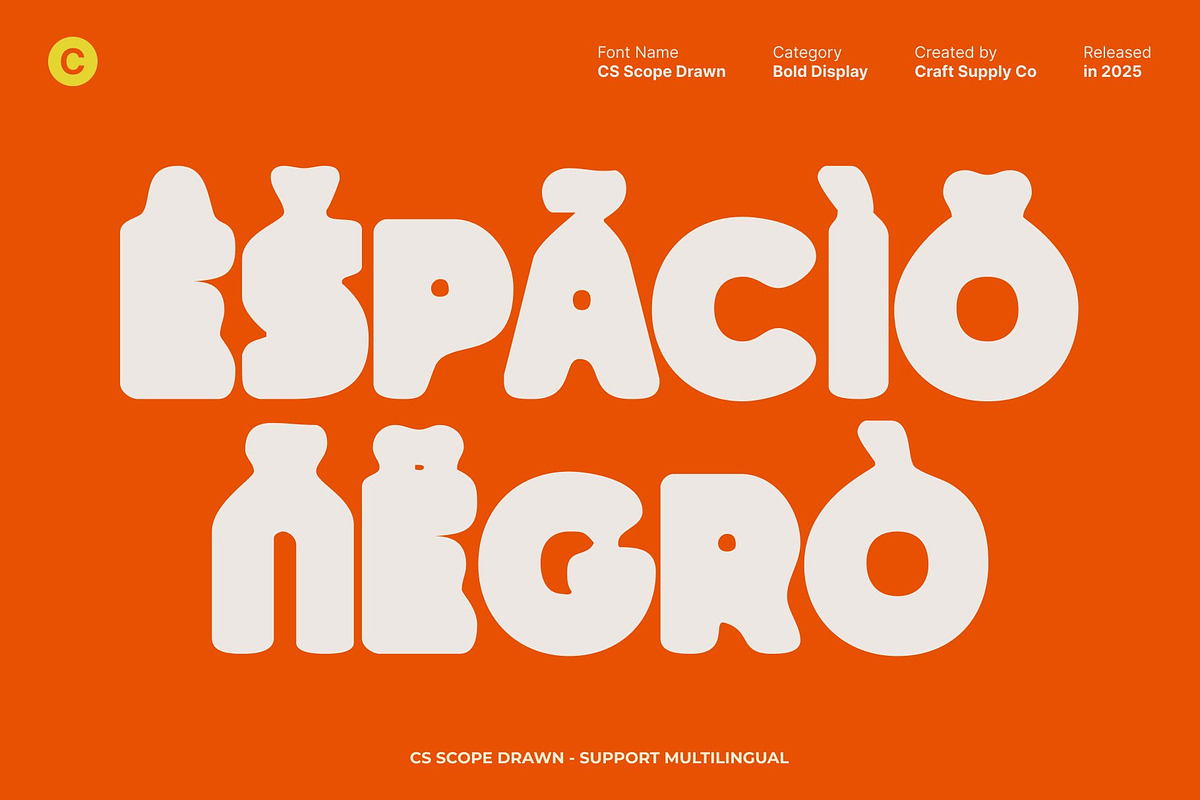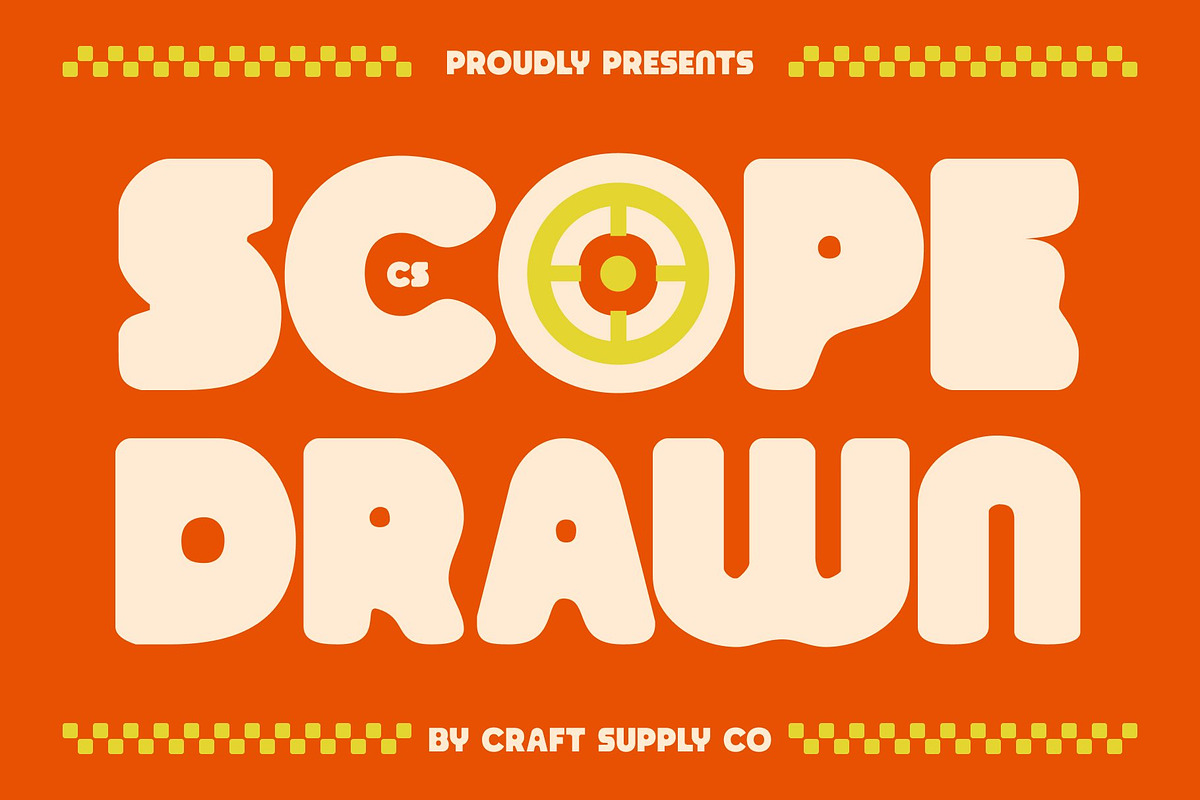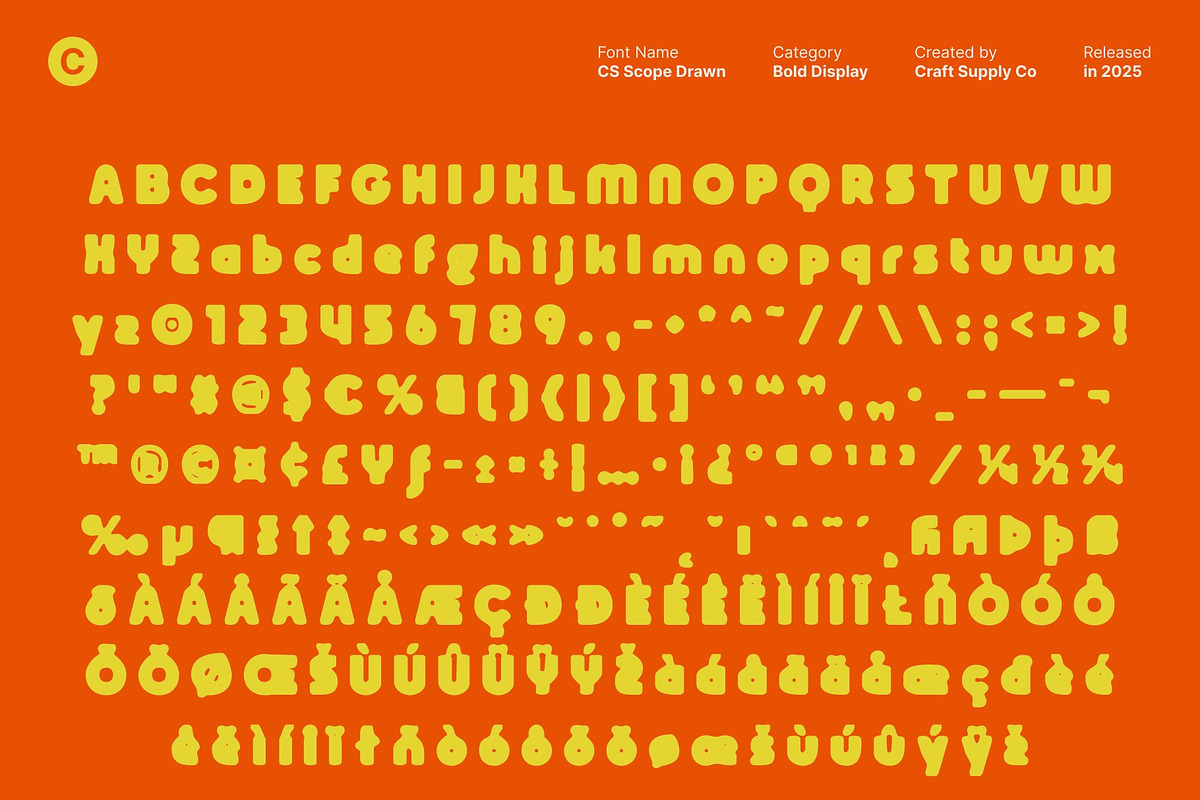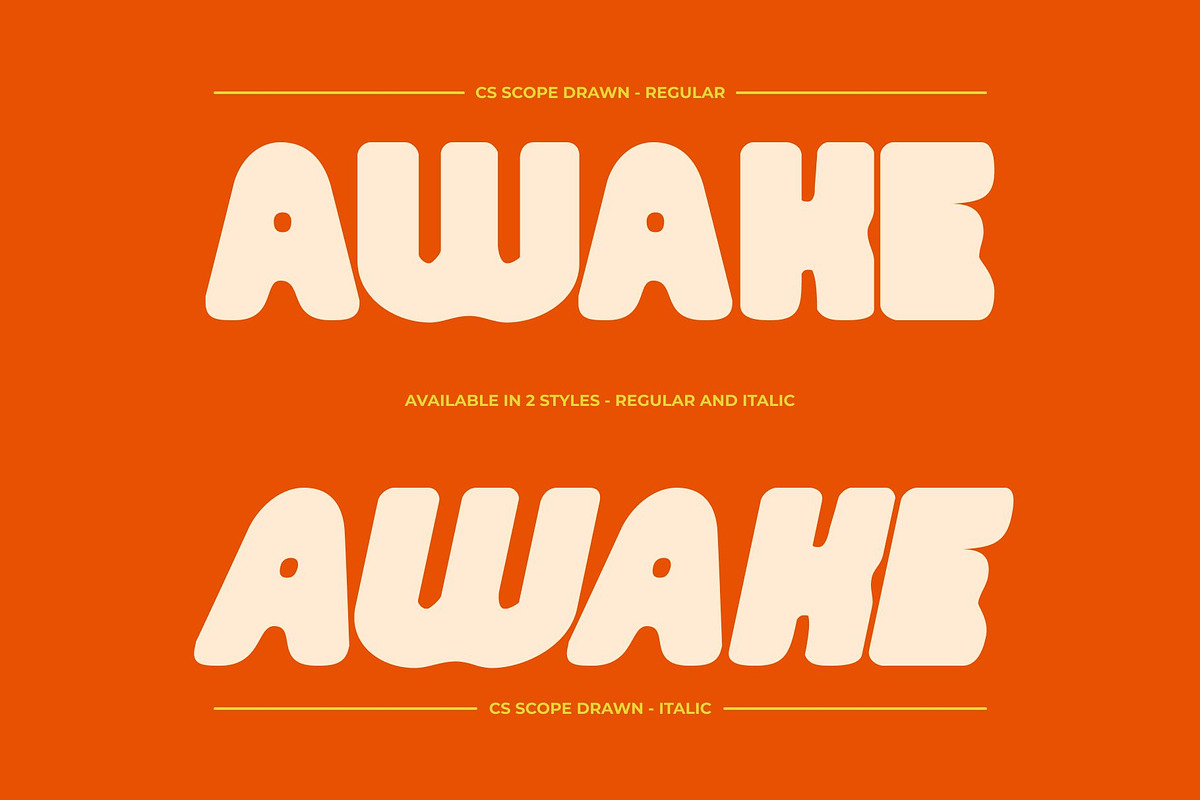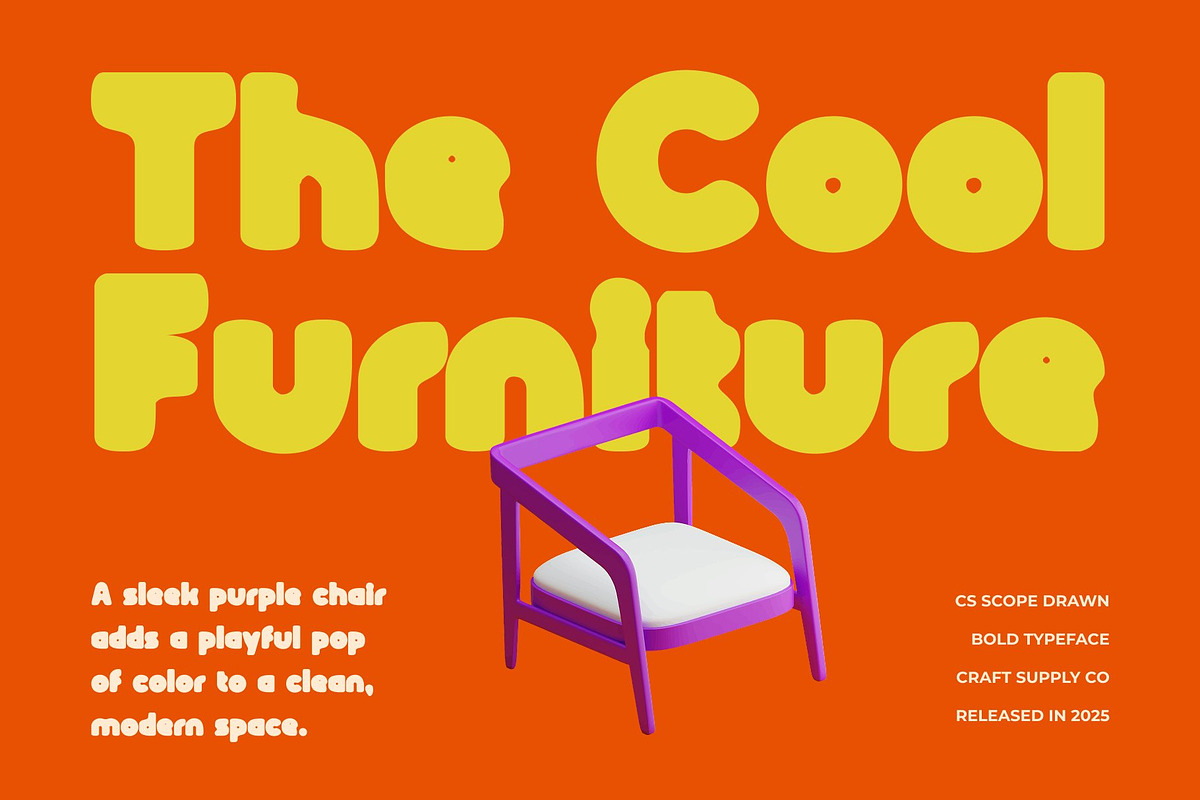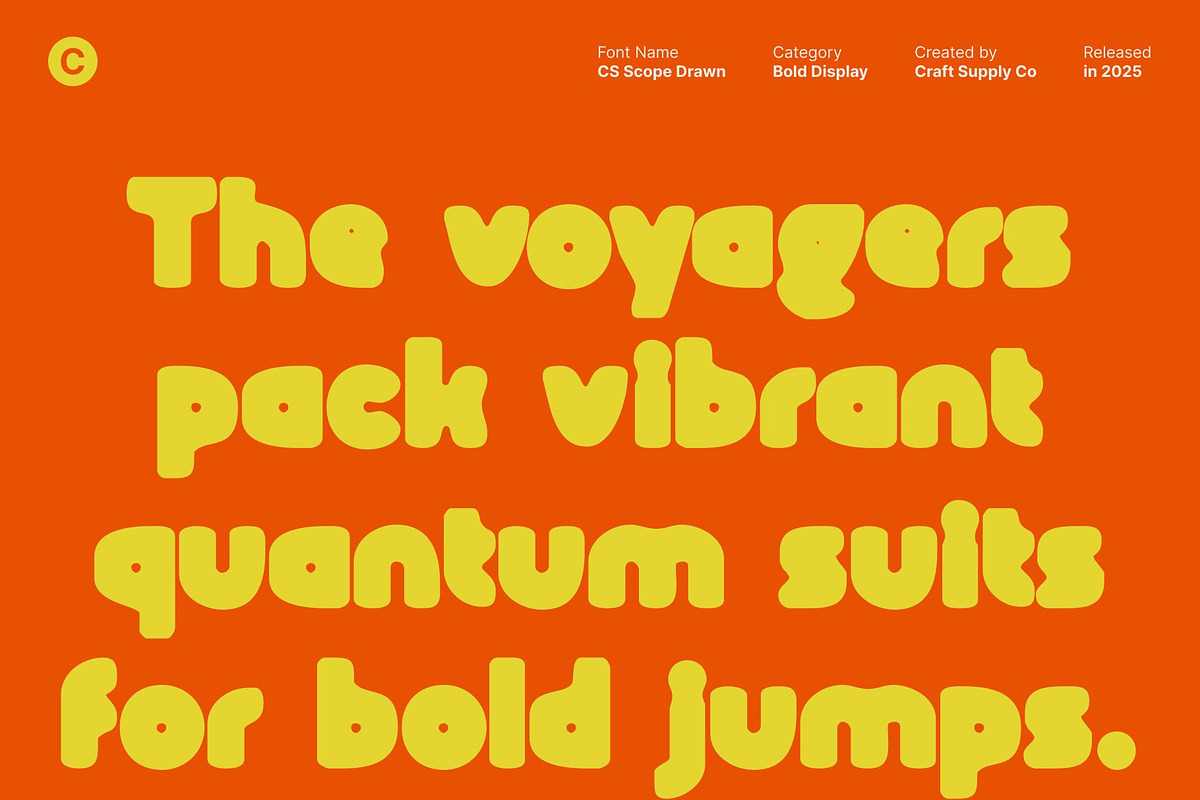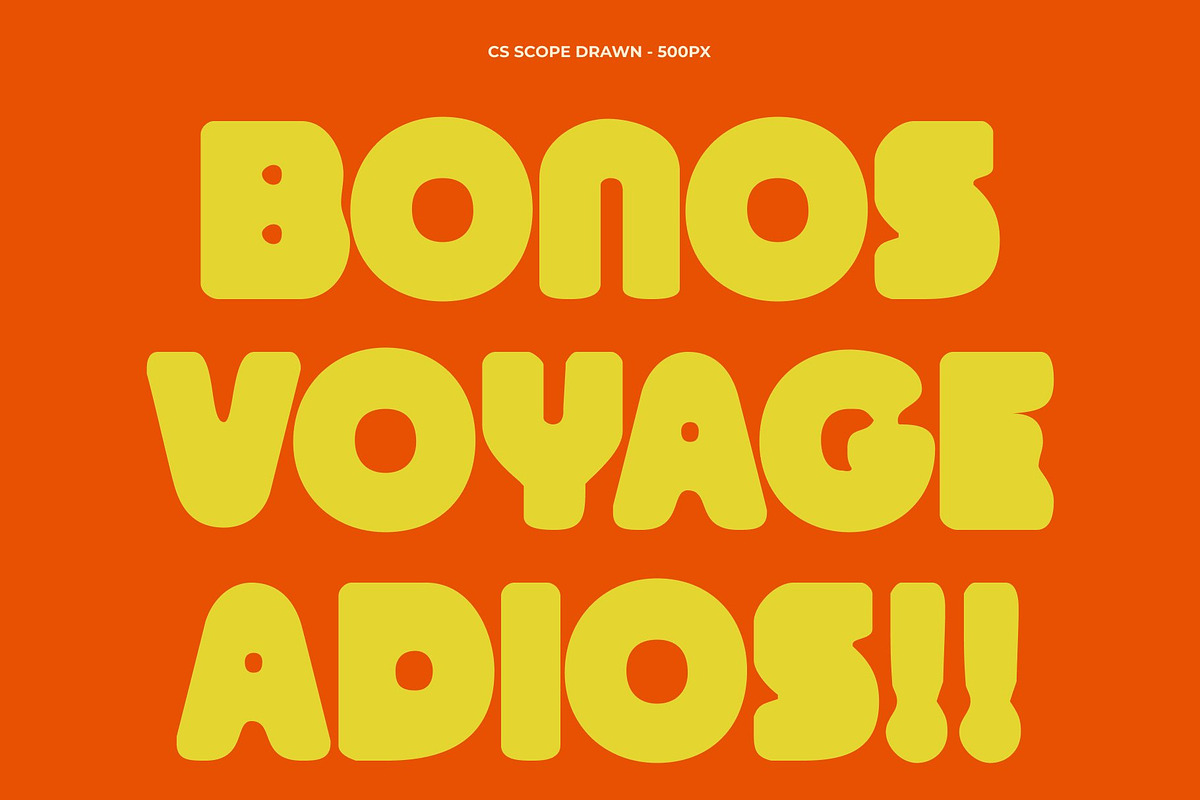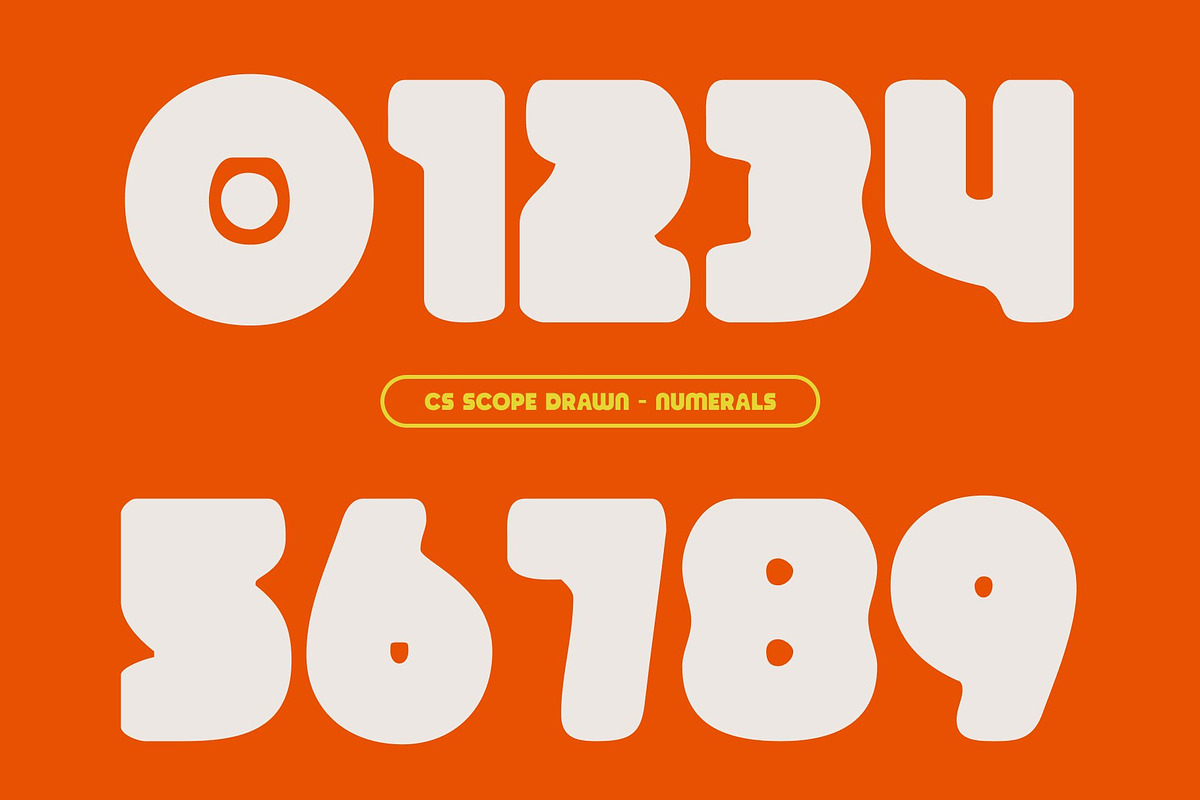
CS Scope Drawn
CS Scope Drawn – Bold Display Font with Modern Geometric Energy
Bold, Eye-Catching Display with Drawn Texture This is a bold display font designed to instantly capture attention. Its heavy weight and confident construction create strong visual impact, making every word stand out clearly. Enhanced with a hand-drawn effect, the font gains a natural texture that adds uniqueness and organic character, preventing it from feeling flat or overly mechanical.
**Modern Geometry with a Friendly Personality Built on clean geometric foundations, this font balances precision with warmth. Rounded corners and playful proportions give the font a friendly, approachable feel, while the drawn details soften its bold structure. This blend of geometry and handcrafted texture creates a modern typeface that feels energetic, expressive, and inviting.
Fresh, Fun, and Engaging Visual Energy This font brings a lively and contemporary vibe to typography. Its cheerful personality makes designs feel positive and engaging, ideal for brands and creatives who want to communicate openness and confidence. The bold forms maintain excellent readability while the drawn effect adds personality and charm.
Perfect for Headlines, Posters, and Branding Designed for high-impact applications, this font excels in posters, headlines, logos, and branding projects. Whether used in print or digital media, it delivers strong presence, modern appeal, and a natural handcrafted feel making it a versatile display font for standout, memorable designs.
- CS Scope Drawn Regular
- CS Scope Drawn Italic